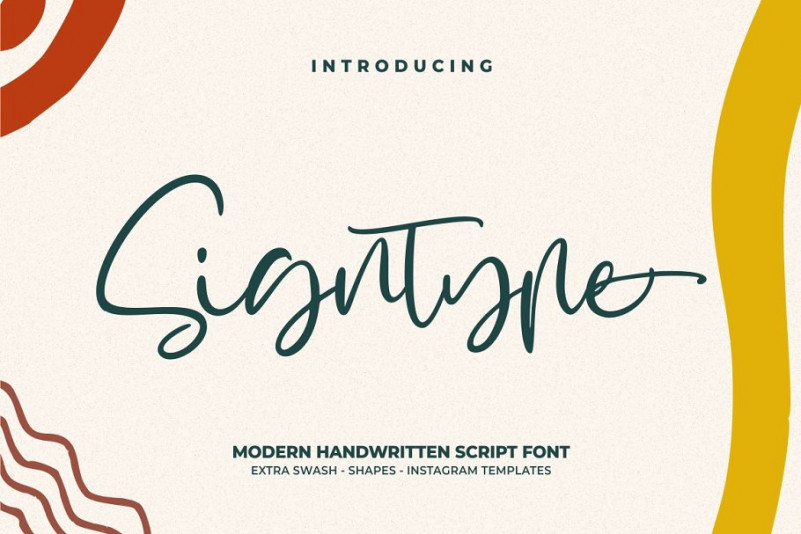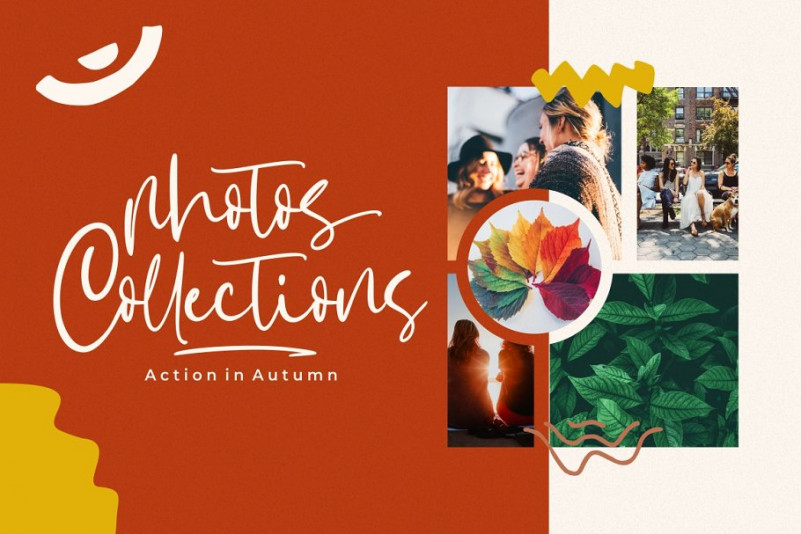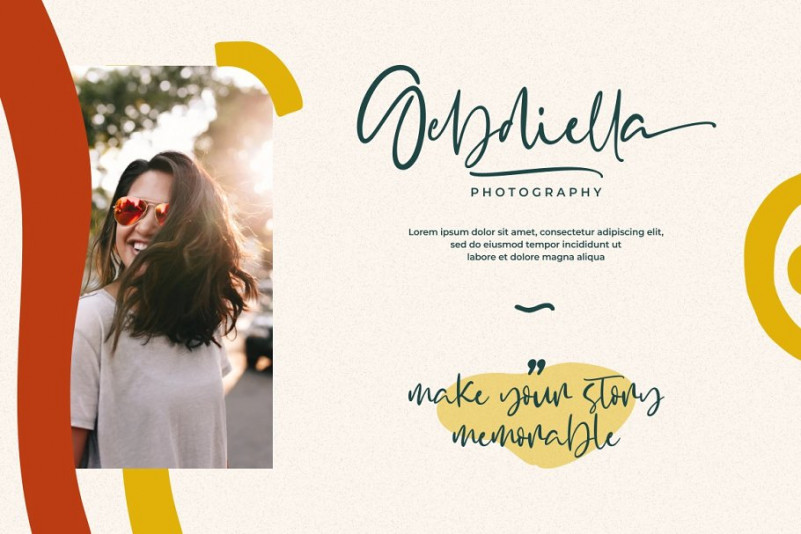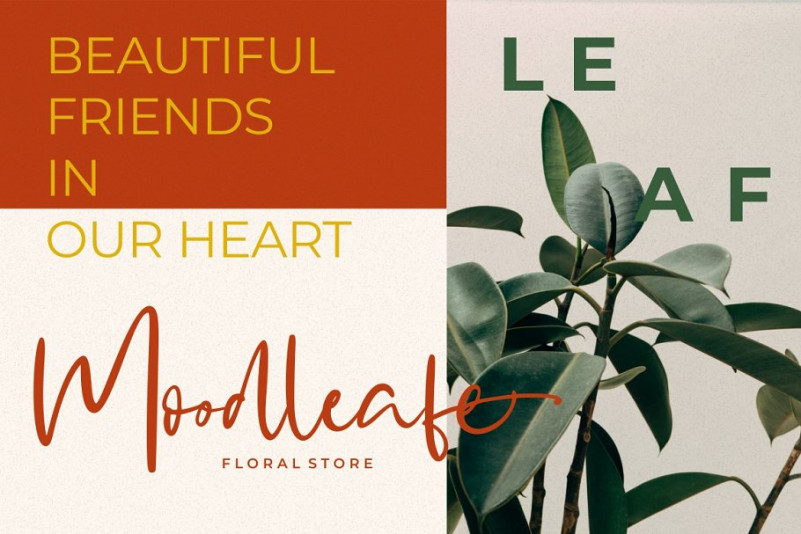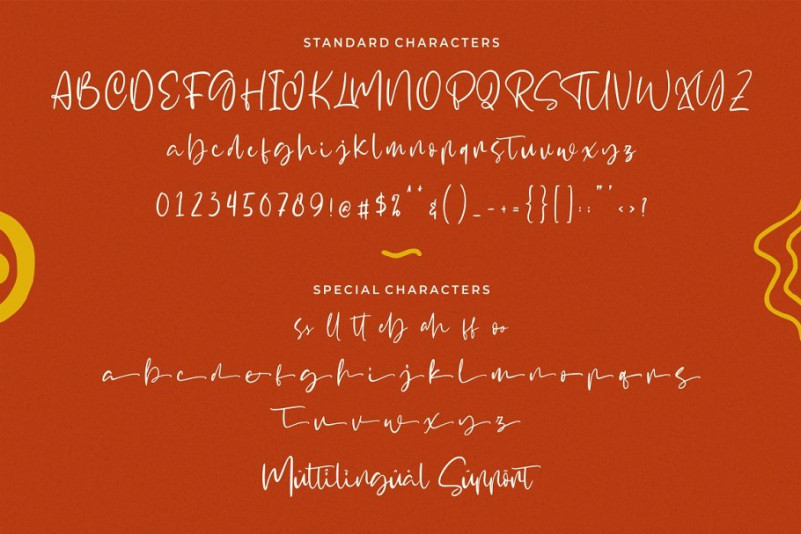
Signtype Script Font
Introducing Signtype Font. An elegant handwritten font, a contemporary and beautiful signature font. This font will make perfect designs for gorgeous logos, posters, wedding invitations, blog posts, social media, and more! It’s designed and shared by Good Java Studio. It’s a natural & modern handwritten font. I’ts Perfect for logo, invitation, stationery, wedding designs, social media posts, advertisements, product packaging, product designs, label, photography, watermark, special events or anything.